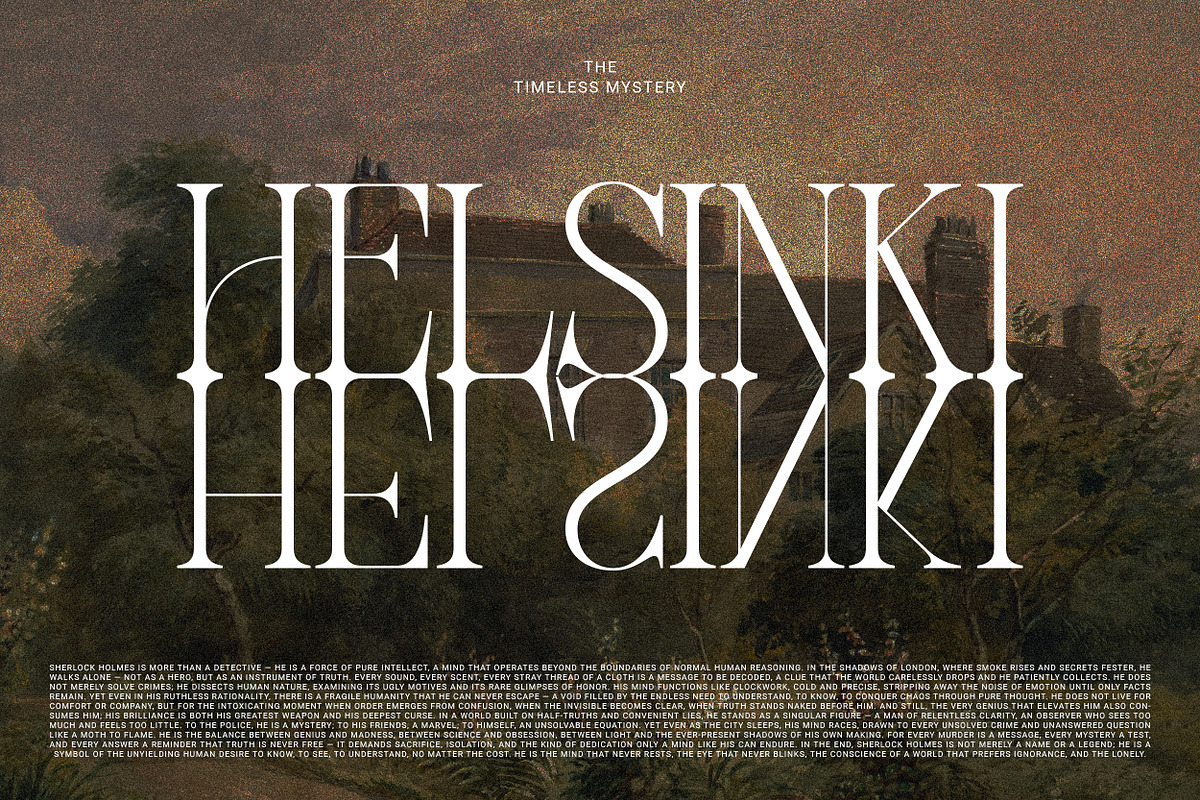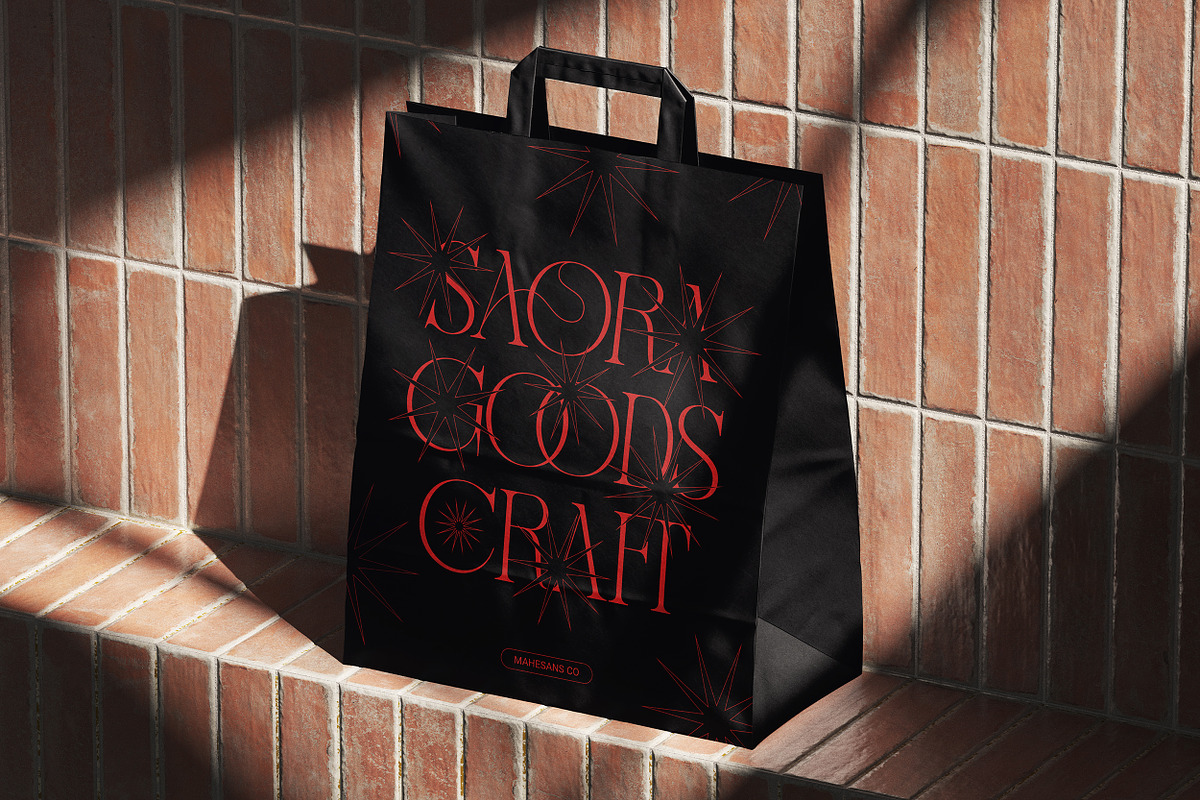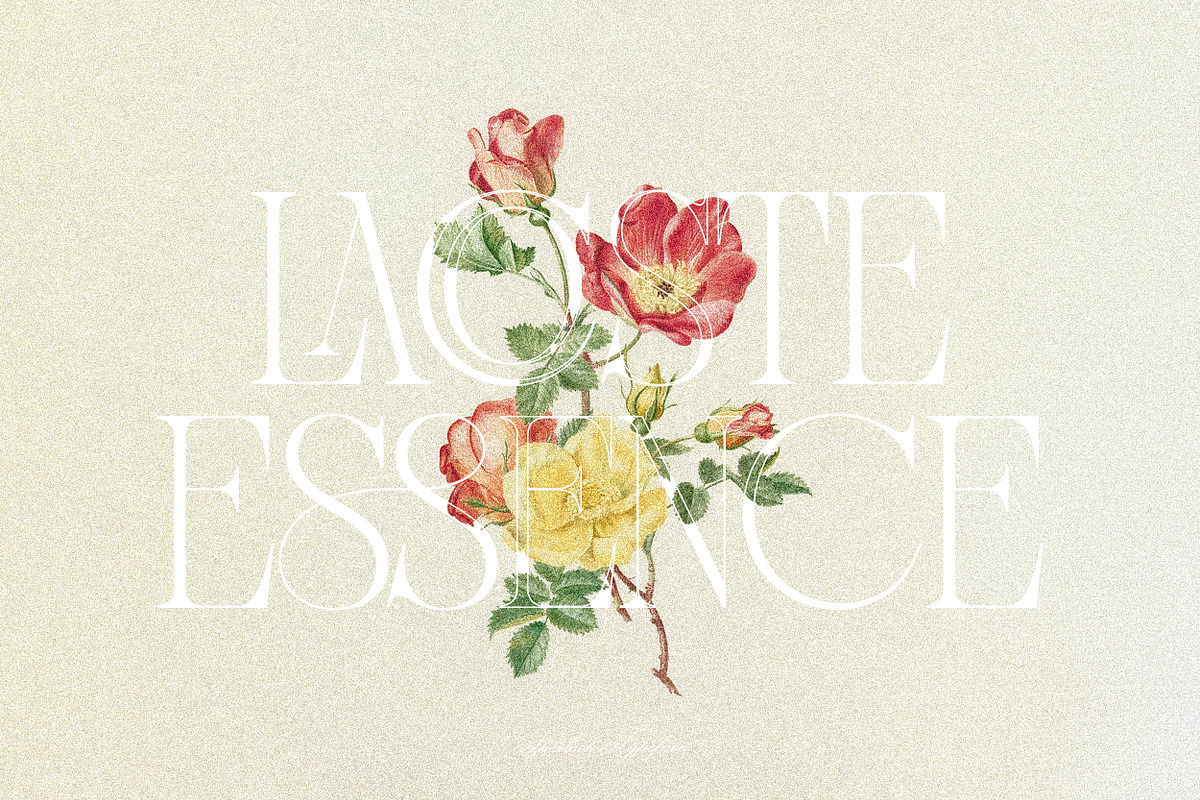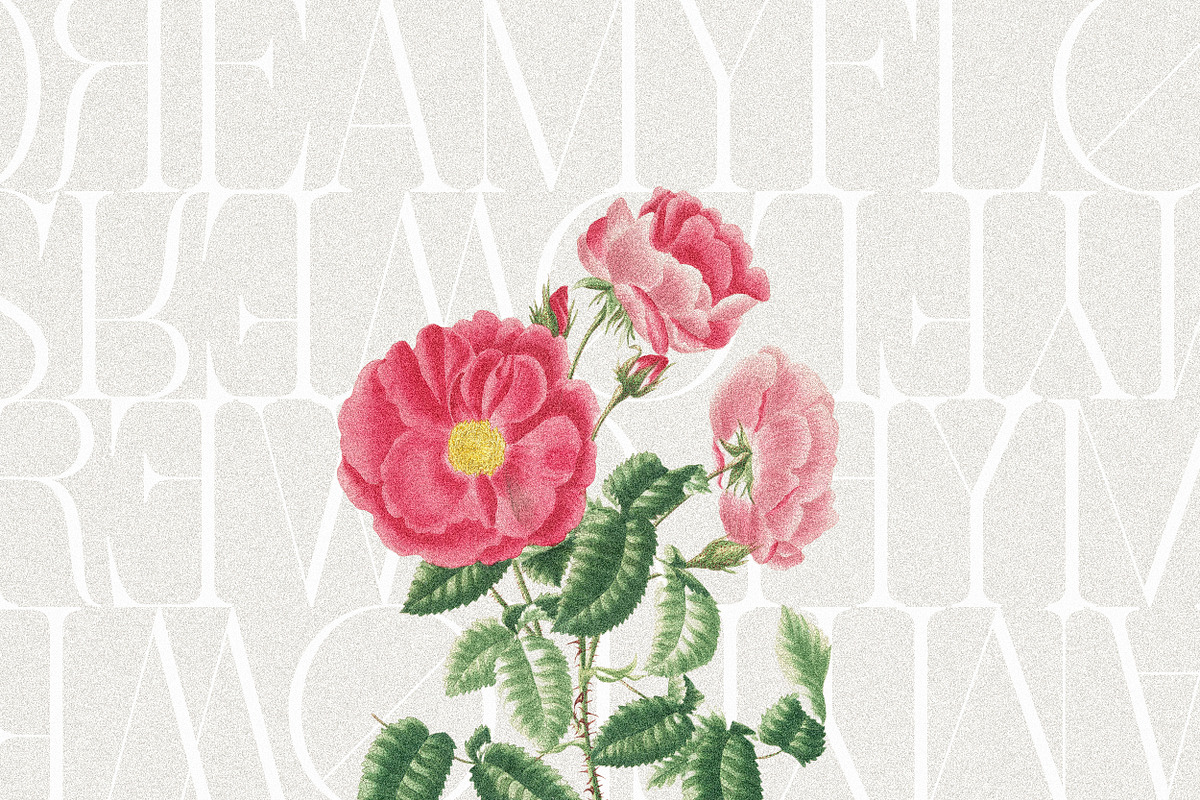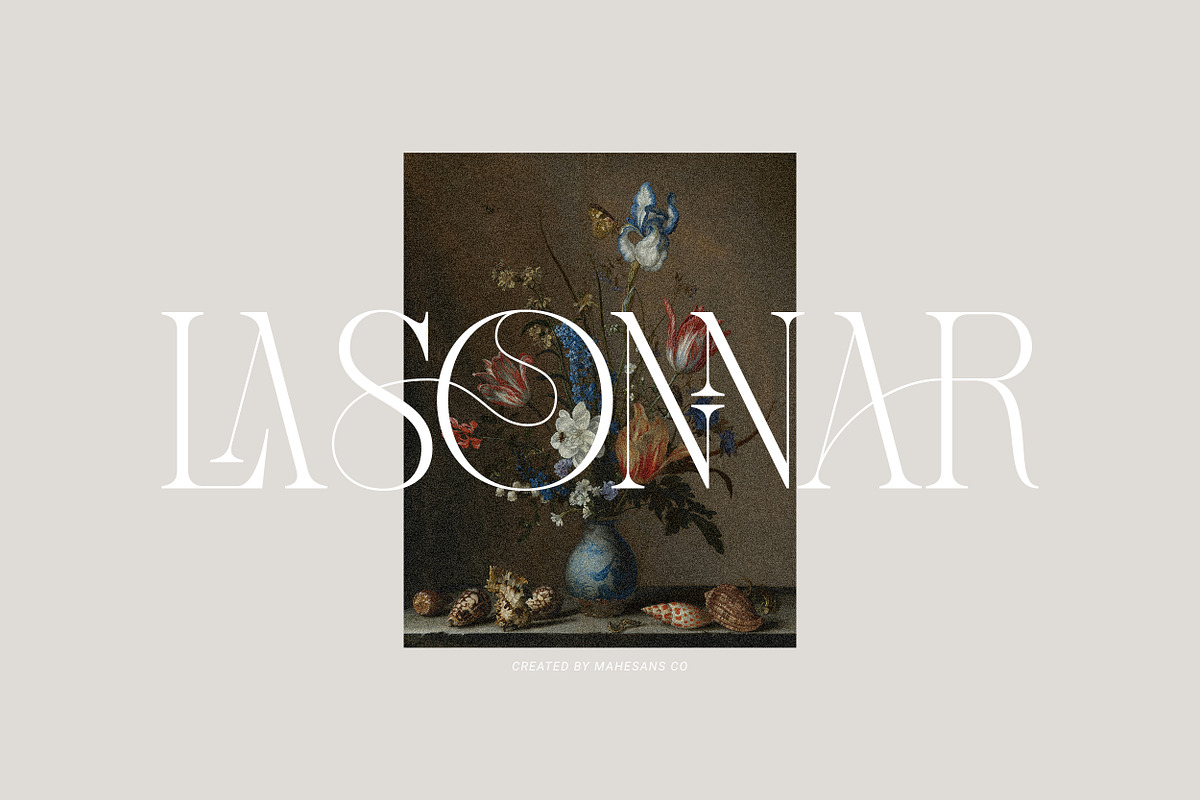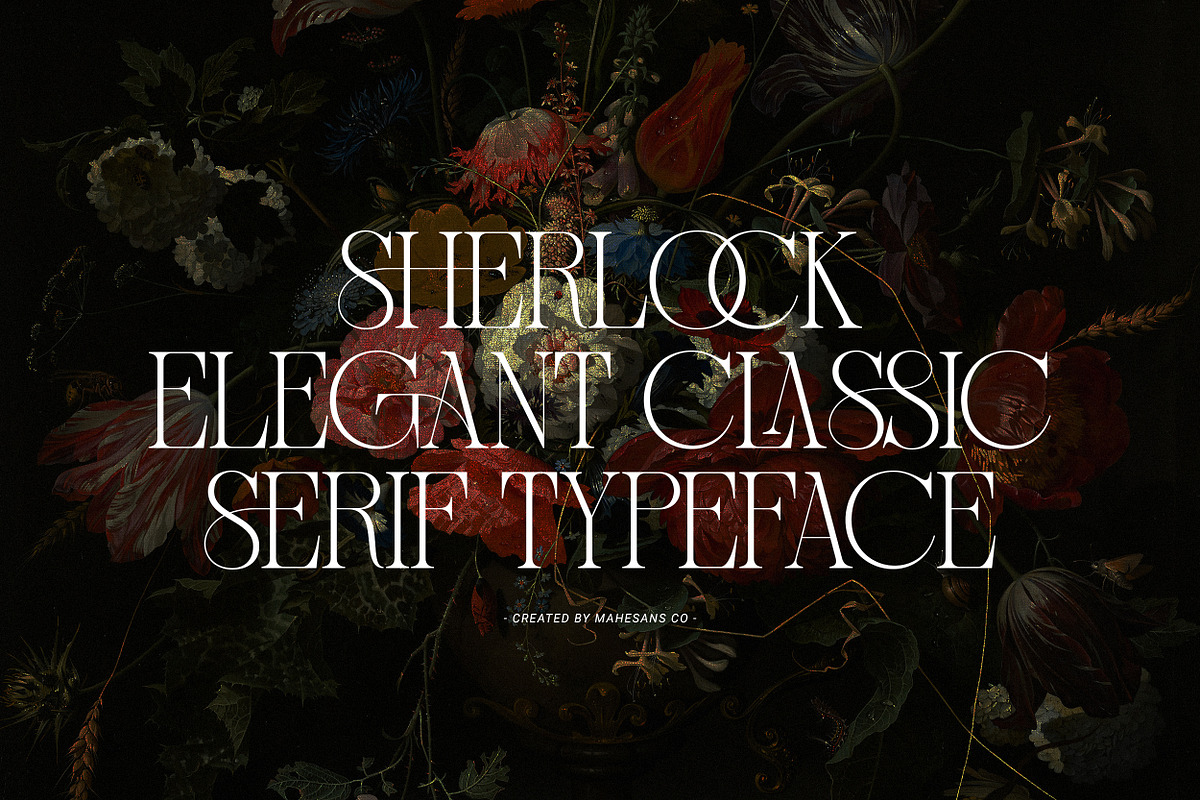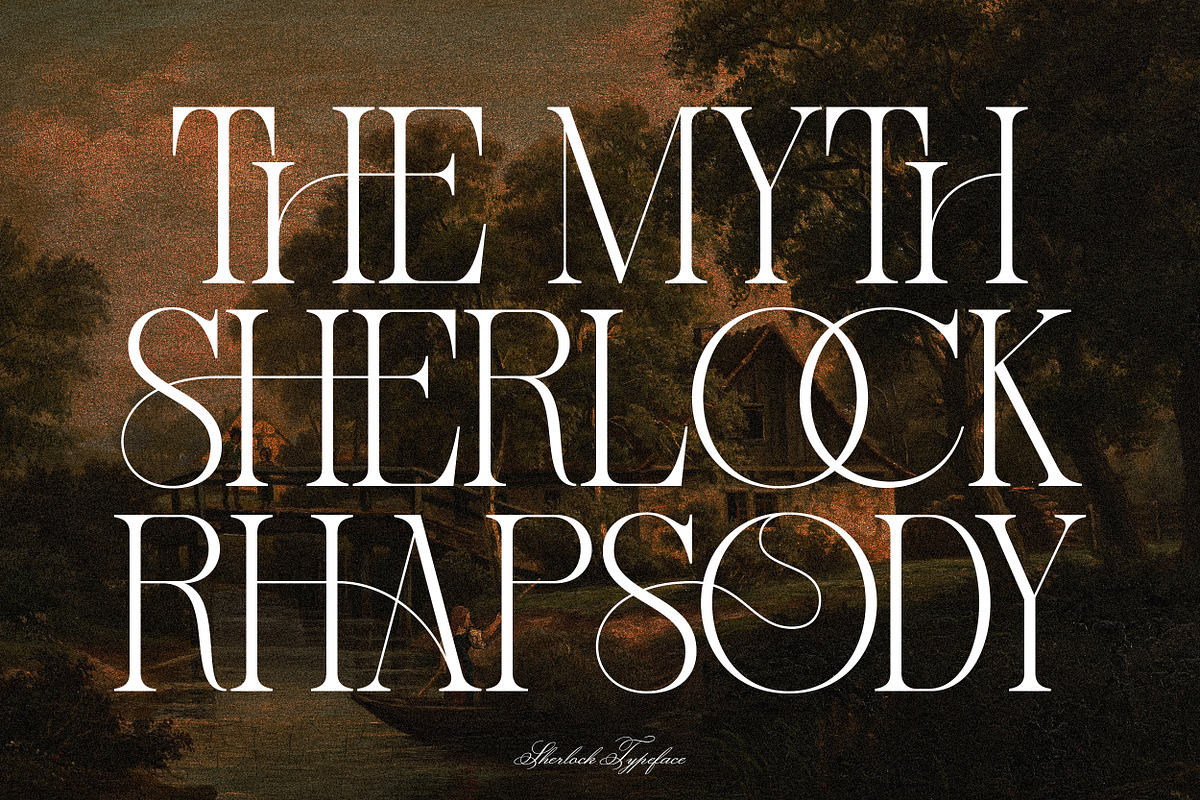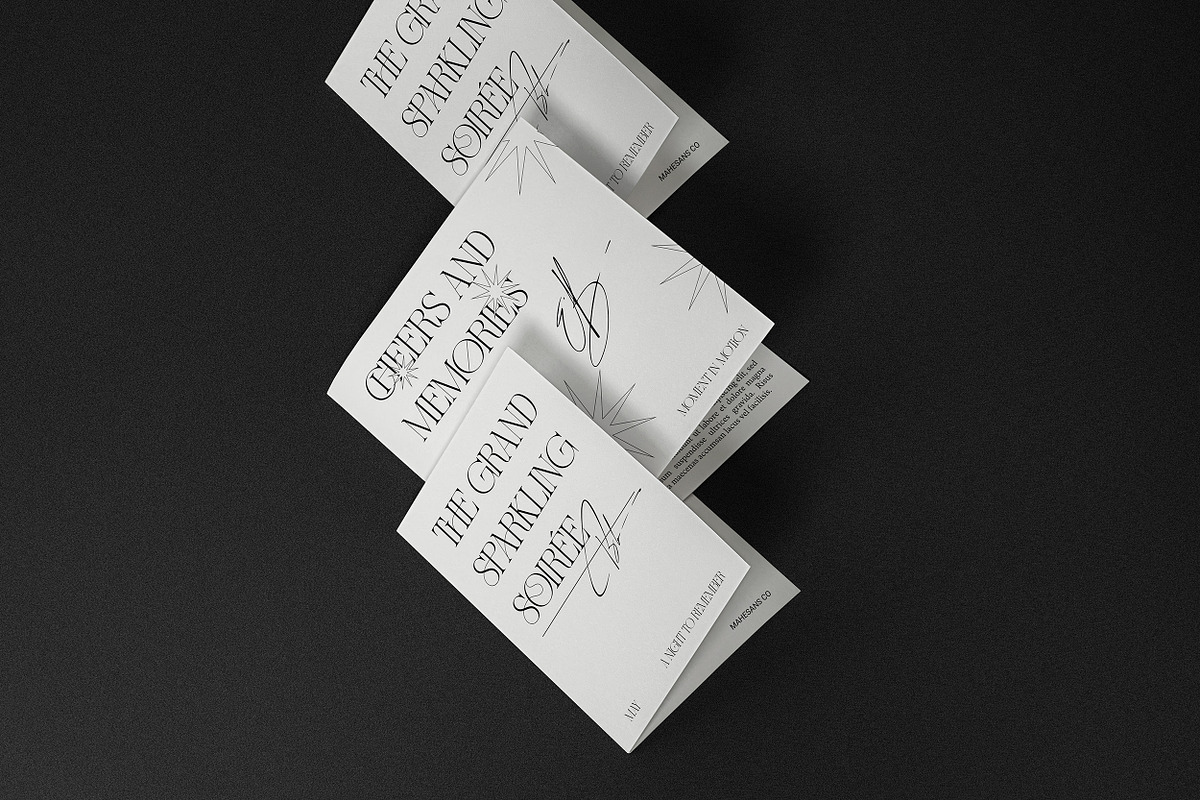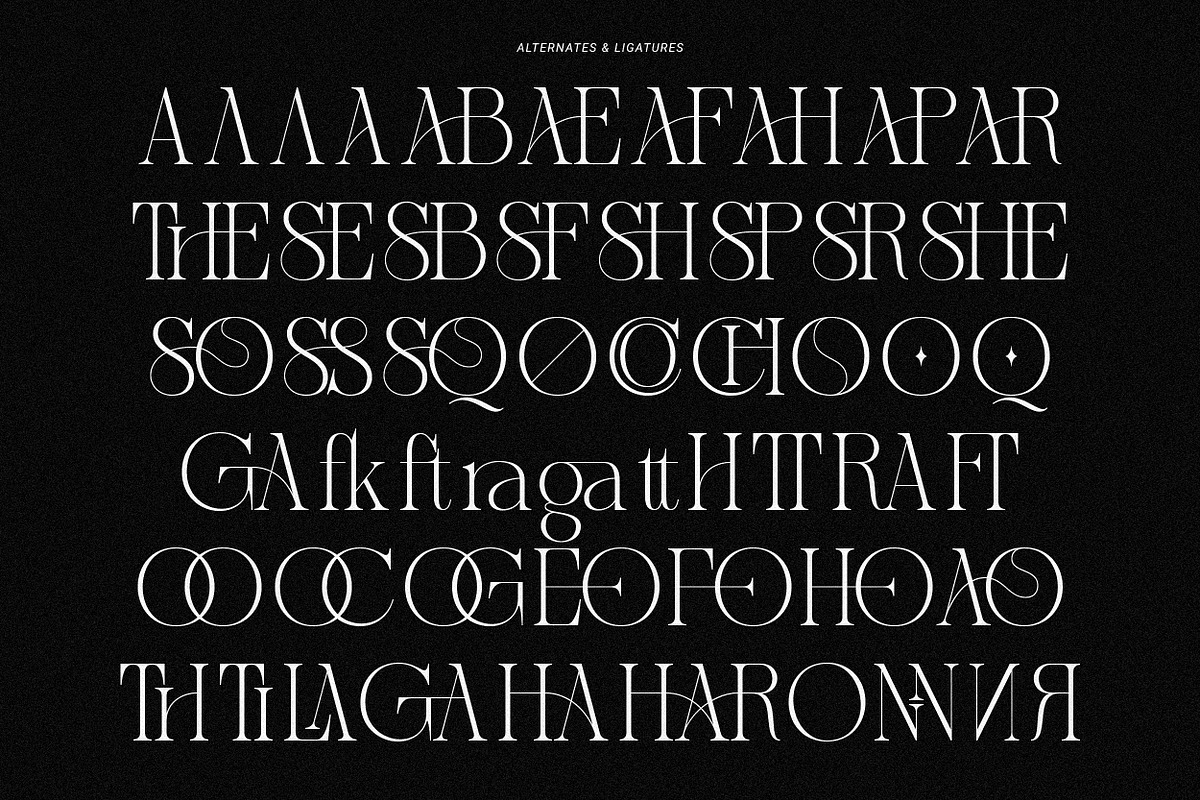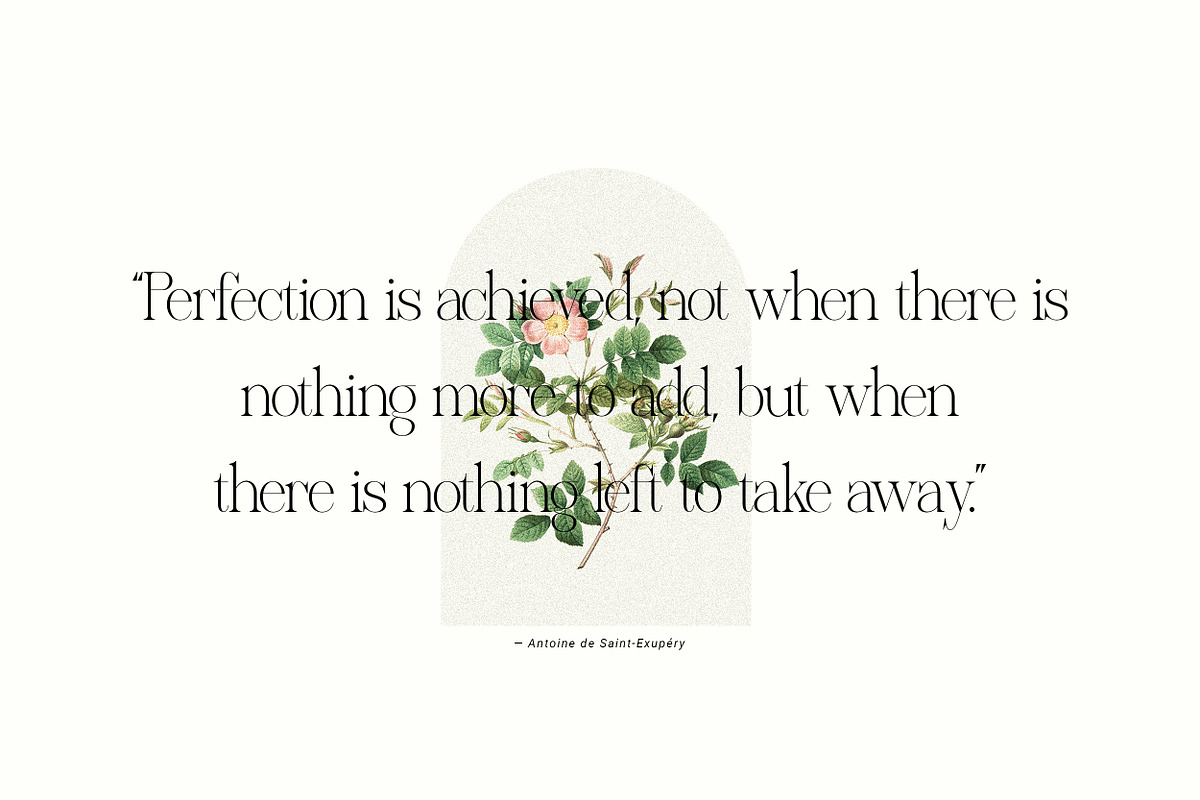
Sherlock – Elegant Classic Serif
Sherlock is a refined serif typeface that embodies elegance, mystery, and timeless sophistication. Inspired by vintage book covers and classical art aesthetics, Sherlock brings a perfect balance between sharp serifs and delicate curves. Each letter is designed with precision, featuring unique ligatures and graceful alternates that elevate your typography to a whole new level of charm.
Perfect for editorial design, luxury branding, invitations, packaging, posters, and logo design, Sherlock adds that sense of drama and allure your project deserves.